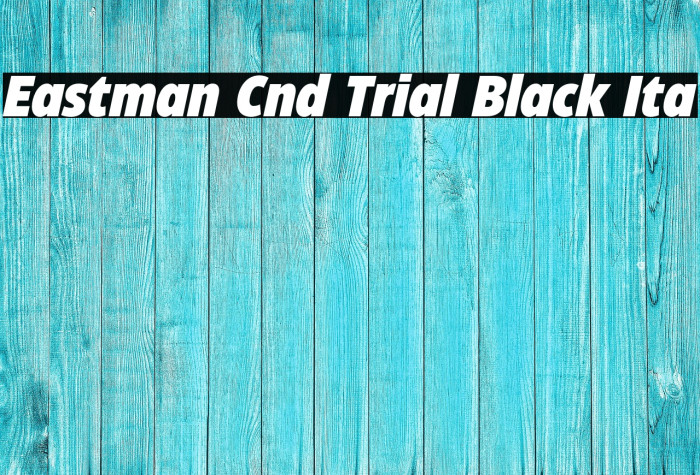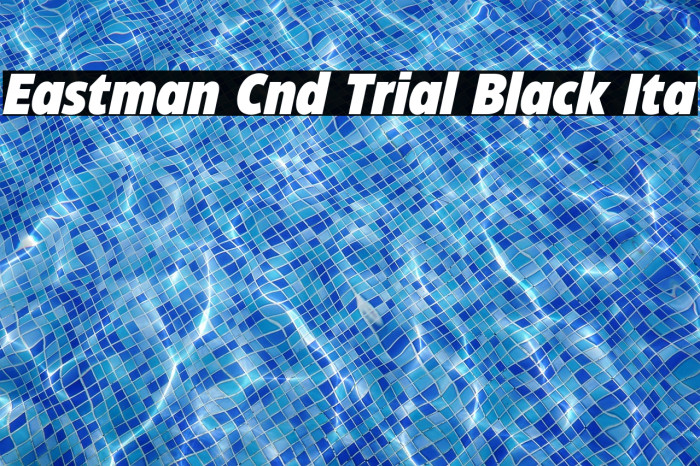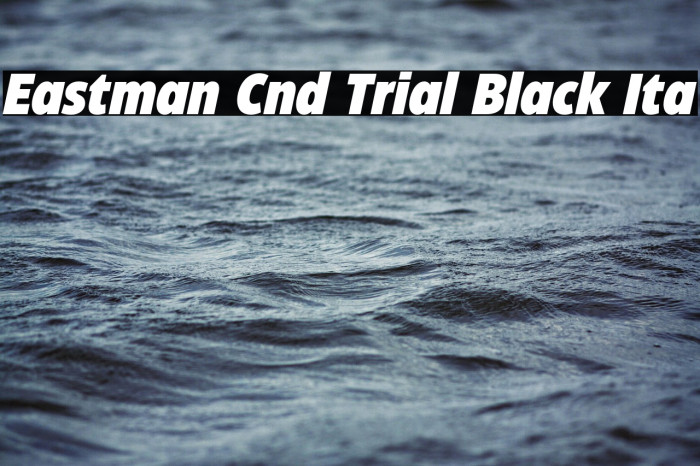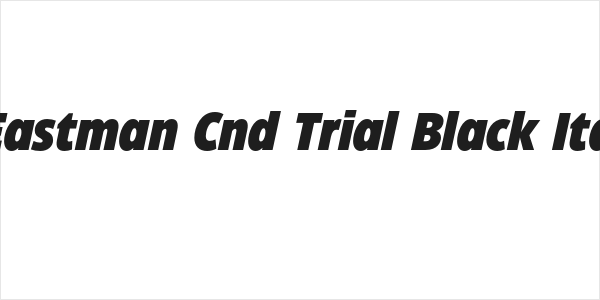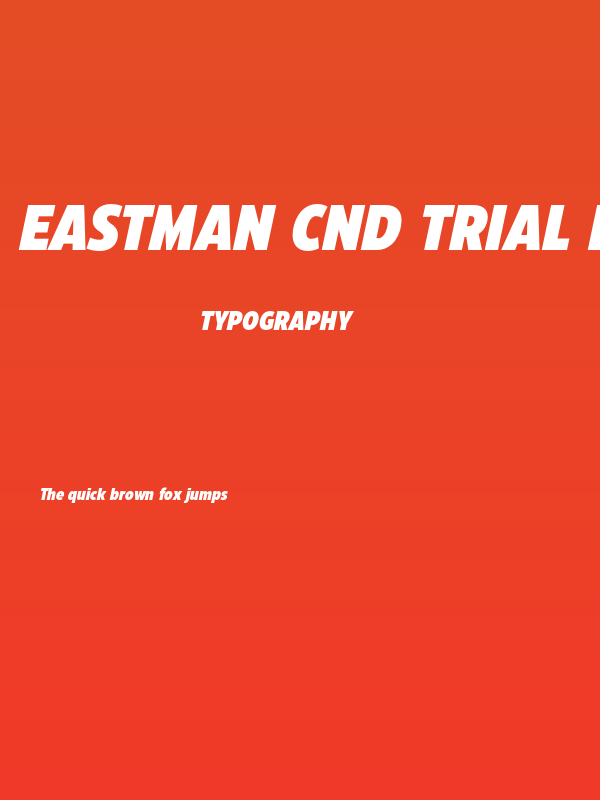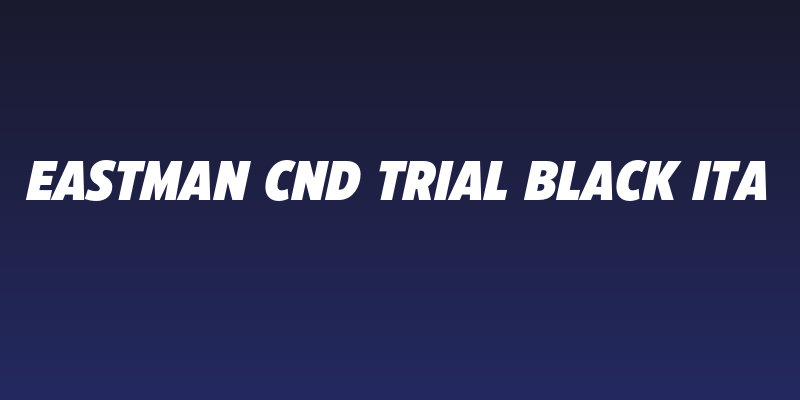
Eastman Cnd Trial Black Ita Font
Eastman Cnd Trial Black Ita Description
This font features a bold and dynamic style with a strong presence. The characters are condensed, giving a compact and powerful look. The strokes are thick, providing a high contrast that enhances readability and impact. The italic slant adds a sense of motion and modernity, making it suitable for attention-grabbing designs. The uppercase and lowercase letters maintain a consistent weight, ensuring uniformity across text. Special characters are included, offering versatility for various design needs. The overall style is modern and assertive, ideal for projects requiring a bold statement.
| Proposed Projects | Ideal for headlines, branding, posters, and any design needing a strong visual impact. |